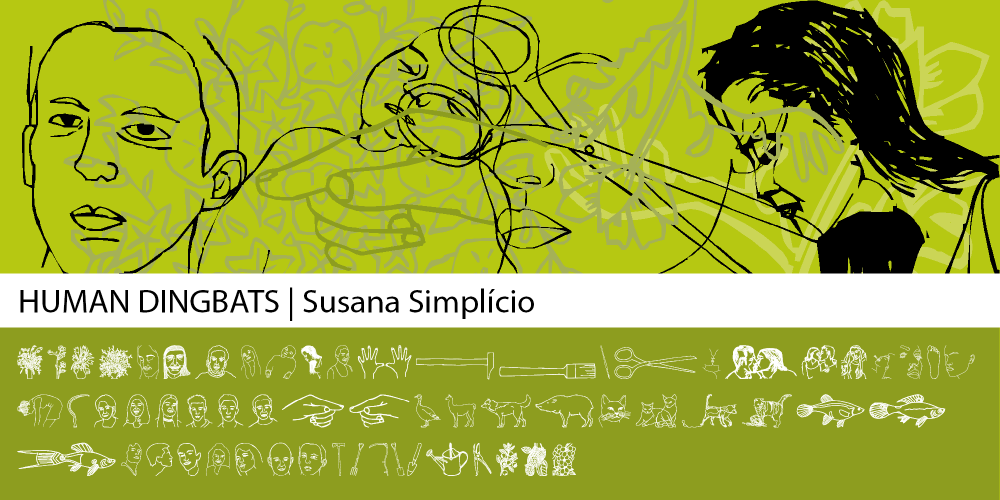
Human
Human font
Human Font Family was designed by Susana Simplício and published by Susana Simplício. Human contains 1 styles and family package options. Human Dingbats are inspired by everyday life, and its main feature is the design-based lines and a wide range of topics of human life. Each Dingbat can be used individually or in the construction of illustrations through the combination of drawings, the limit is the imagination to create a variety of creative possibilities.